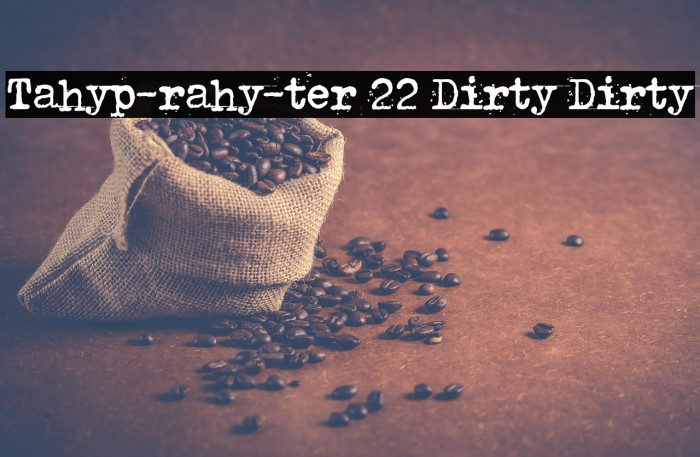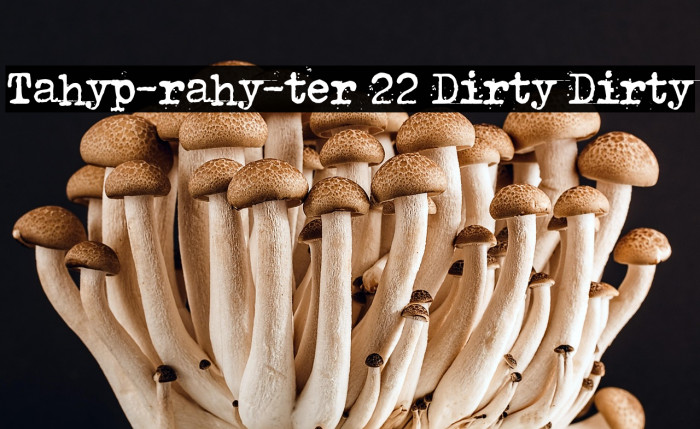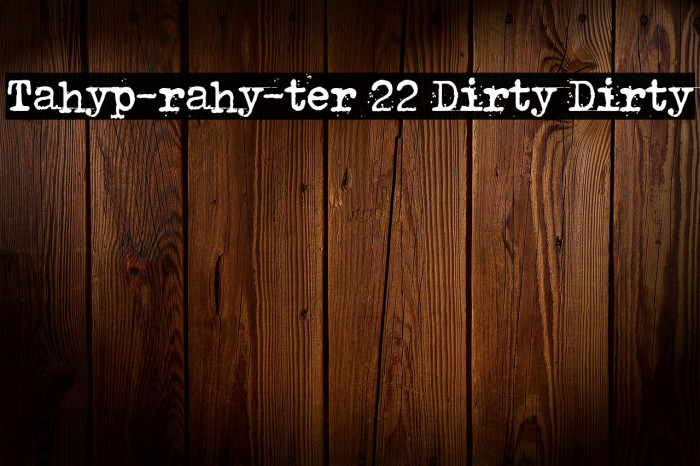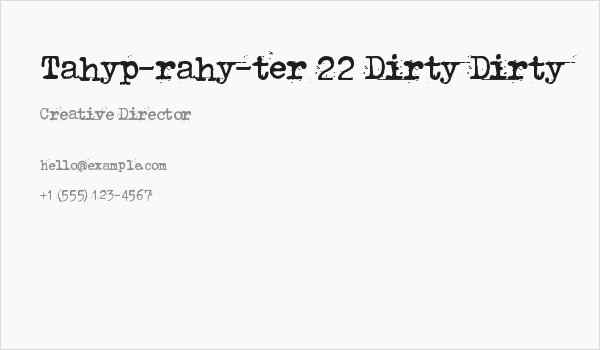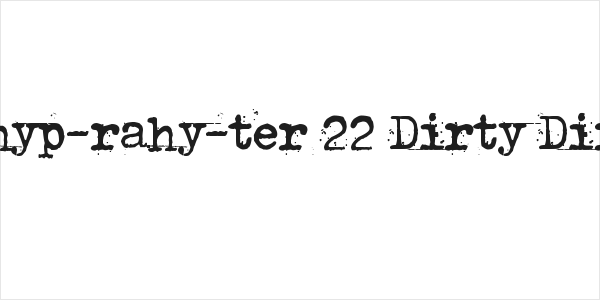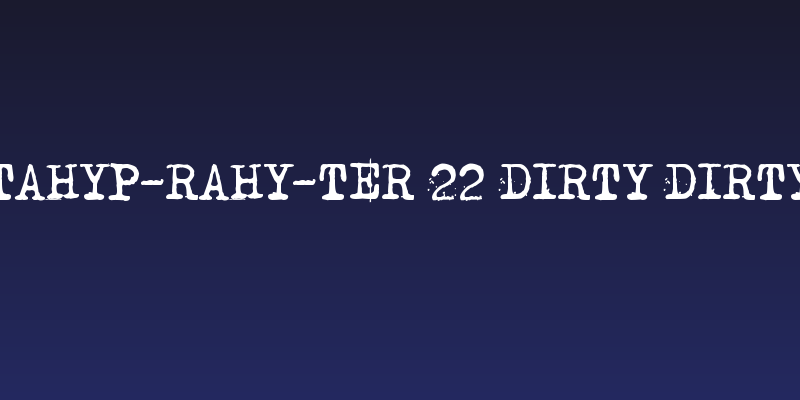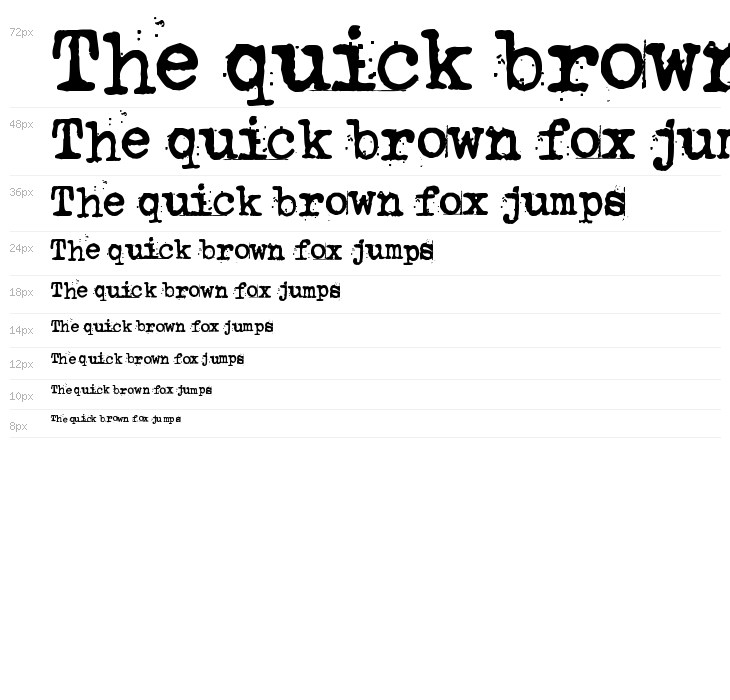
Tahyp-rahy-ter 22 Dirty Dirty Font
Tahyp-rahy-ter 22 Dirty Dirty Description
This font exudes a rugged, distressed aesthetic reminiscent of vintage typewriter text. Each character is marked by irregular edges and a grunge texture, giving it a worn, weathered appearance. The uppercase and lowercase letters maintain a consistent style, with bold strokes and uneven lines that enhance its raw, organic feel. Numbers and special characters follow the same distressed design, making the font cohesive and visually striking. Its unique style captures a sense of nostalgia and authenticity, ideal for projects that require a touch of the unconventional or a retro vibe.
| Proposed Projects | Ideal for retro-themed designs, posters, album covers, and any project seeking a vintage or gritty aesthetic. |